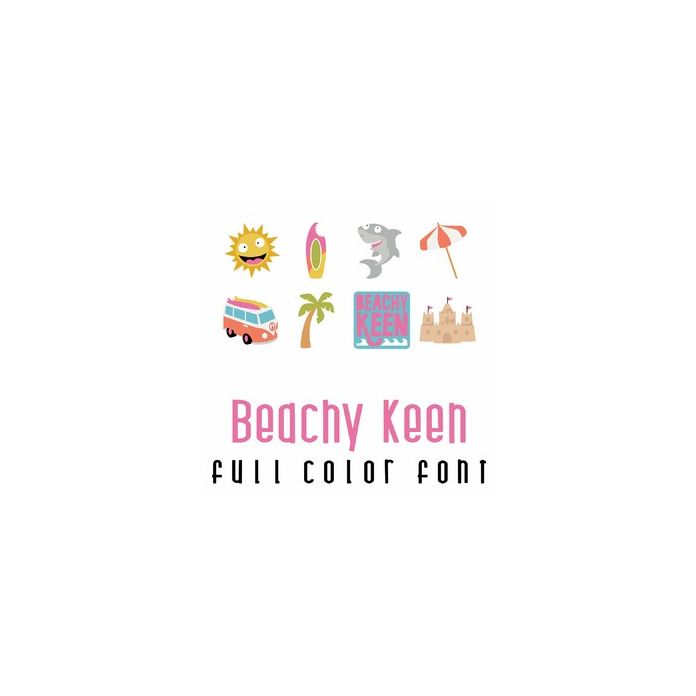
This adorable full-color doodlebat font features 26 beach items perfect for summer fun. Perfect for cards, crafts, gifts, decor, scrapbook pages, planner stickers, and more!